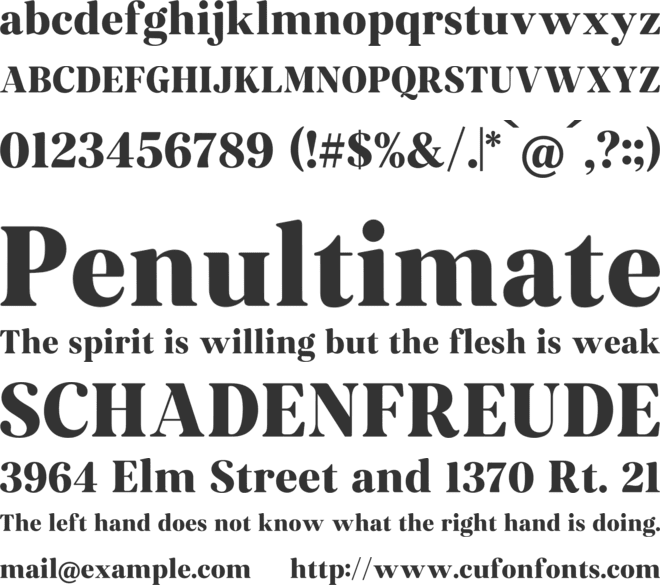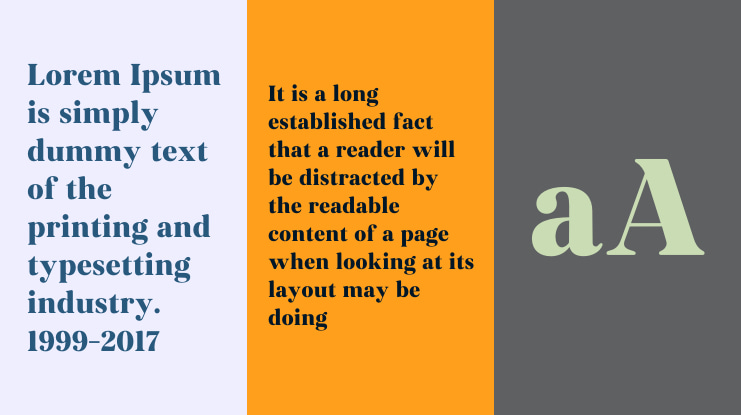
Veloire Font
Veloire — A Soft Editorial Serif for Luxury Branding
Veloire is a refined soft editorial serif typeface that blends timeless elegance with a modern, approachable character. Designed for brands that value sophistication and authenticity, Veloire brings effortless luxury to every design, from premium branding to editorial layouts.
Perfect for Luxury Branding, Fashion & Beauty Brands, Editorial Design, Magazine Headlines, Logo Design, Boutique & Lifestyle Brands, Perfume & Cosmetic Packaging, Jewelry Branding, Product Packaging, etc.